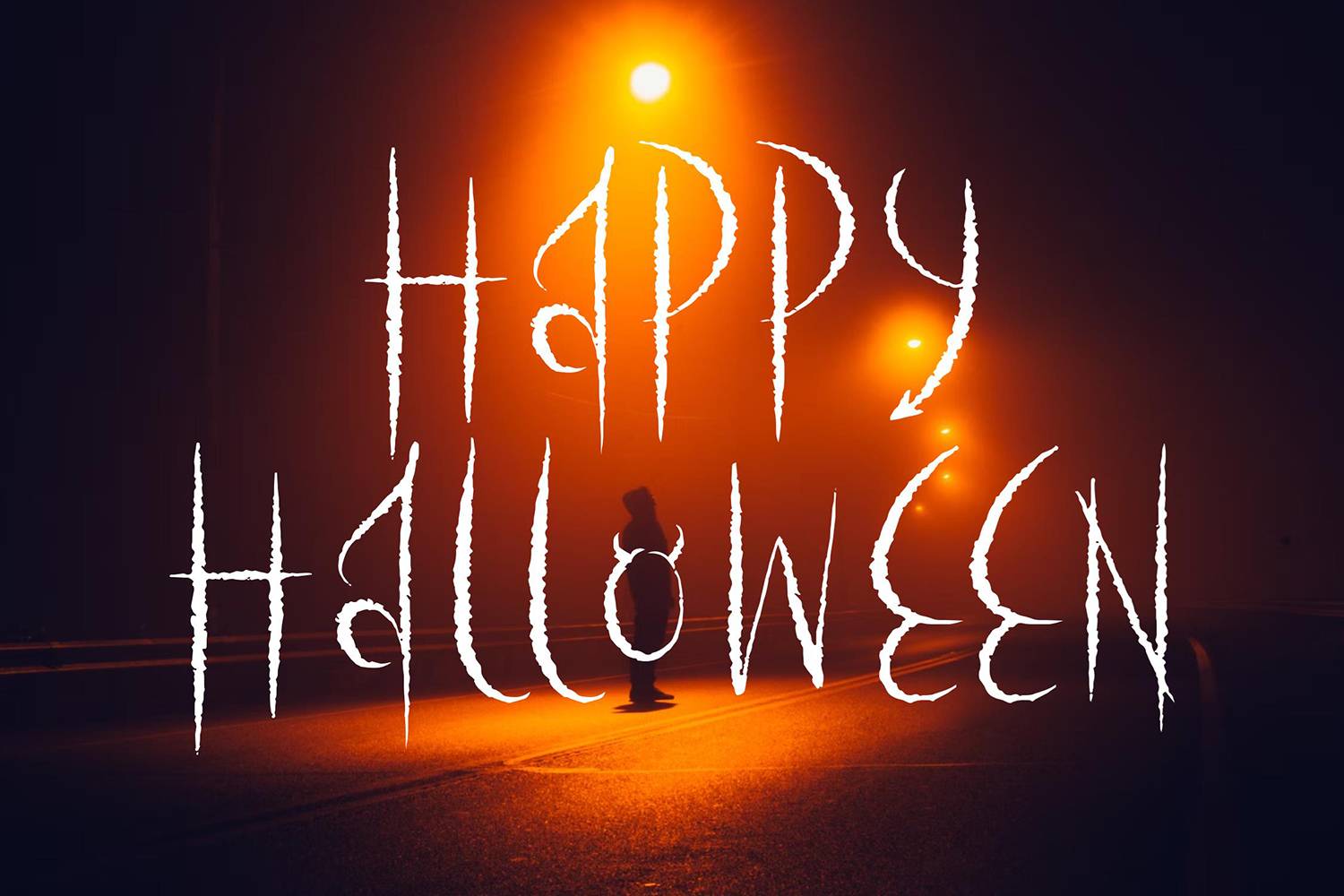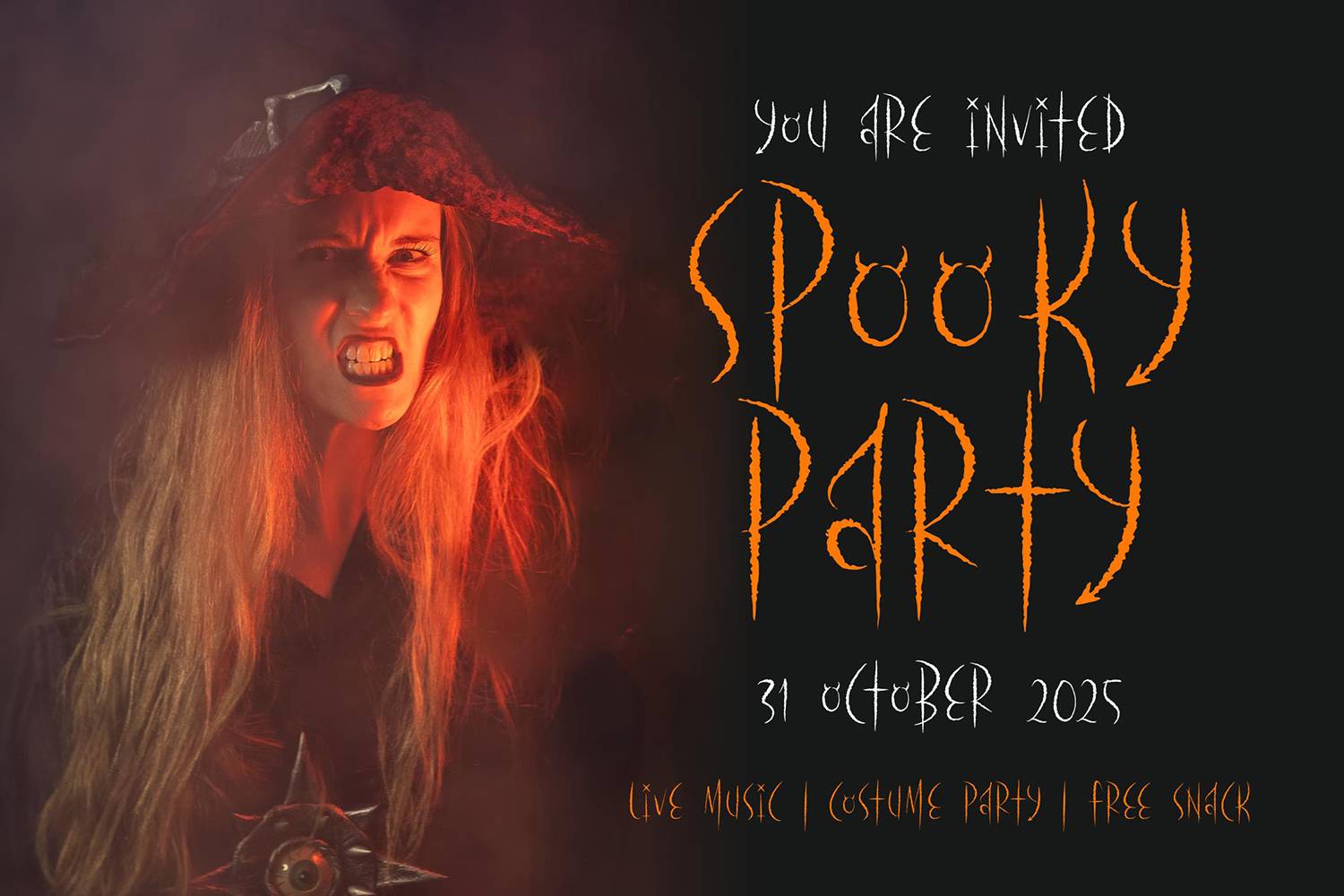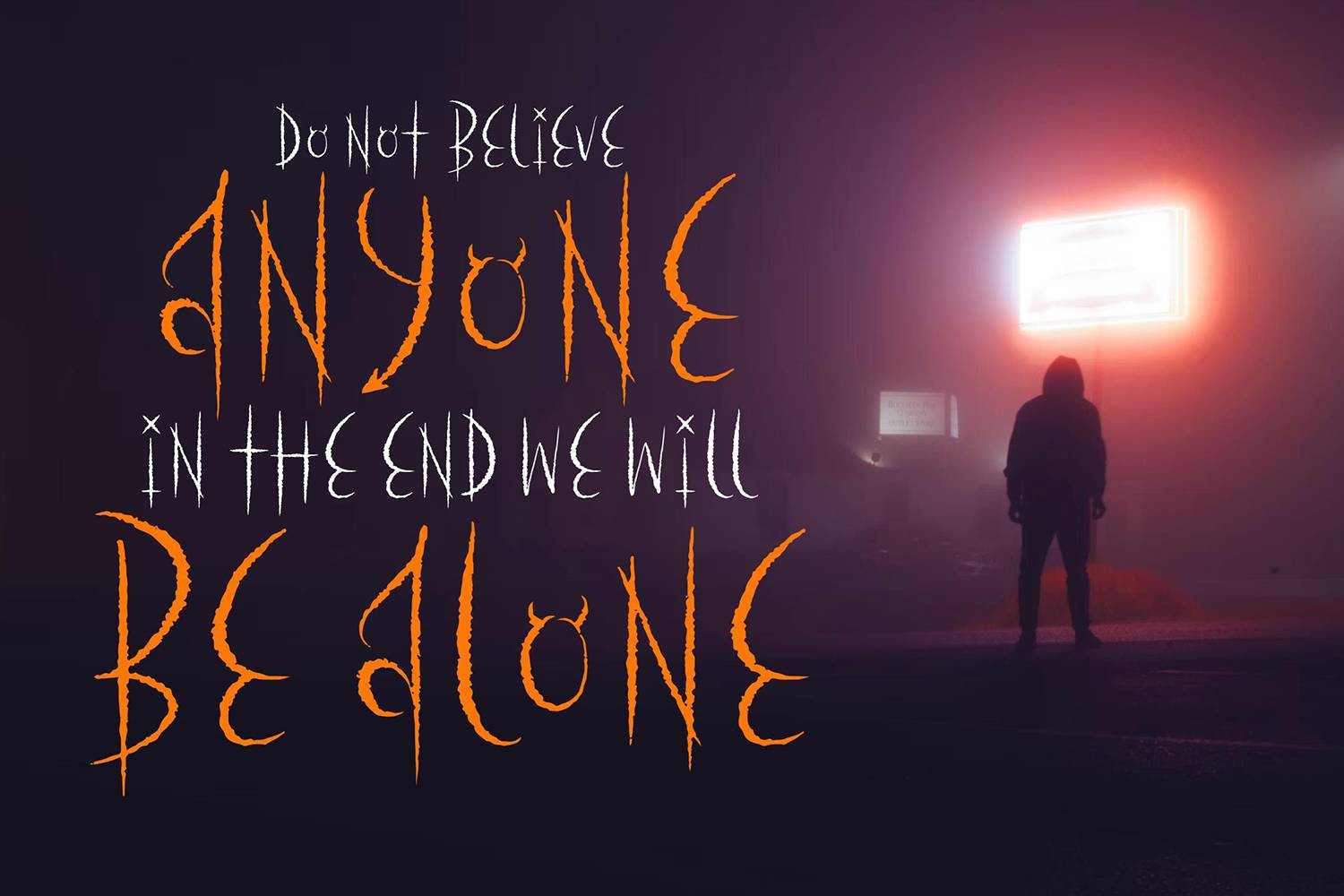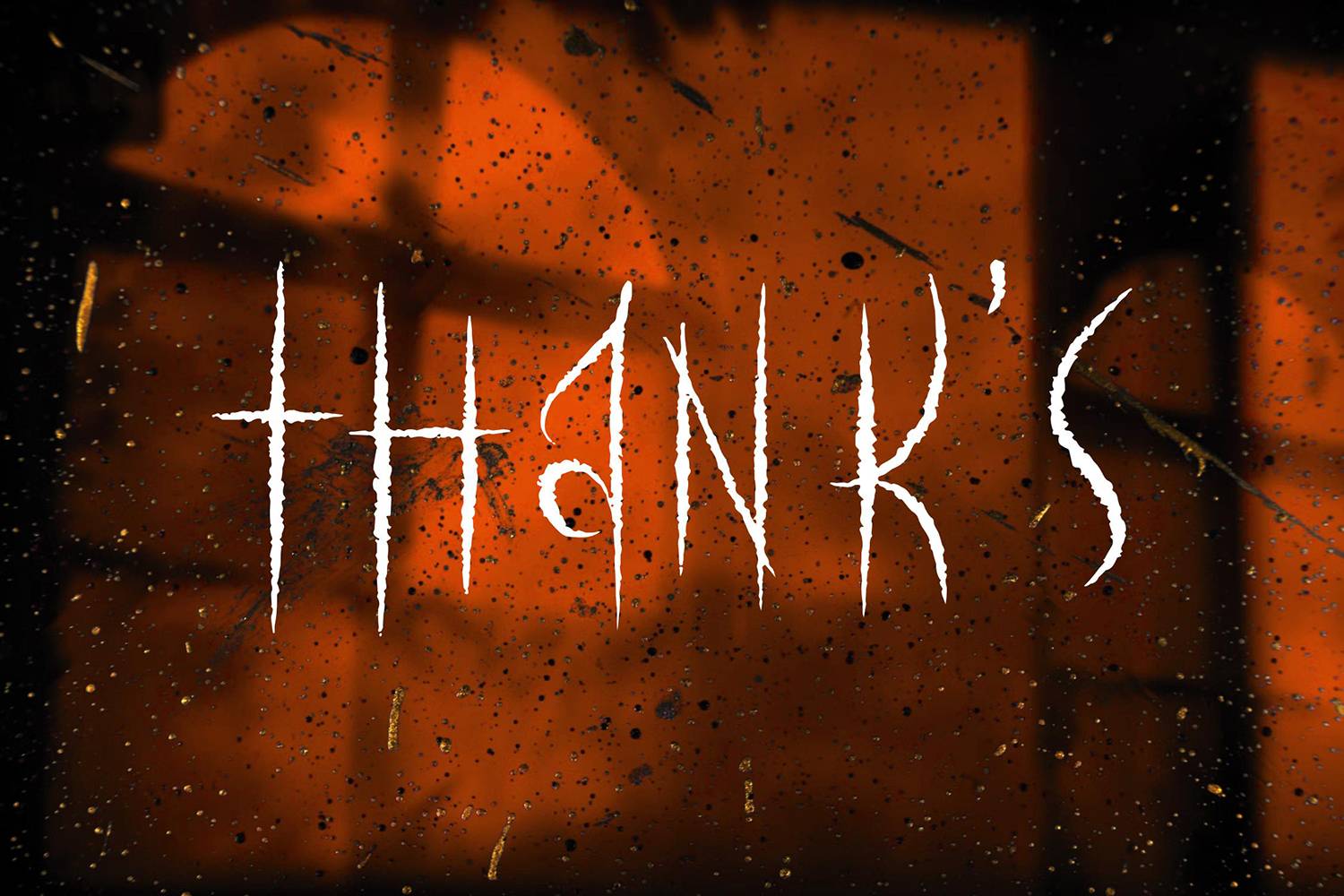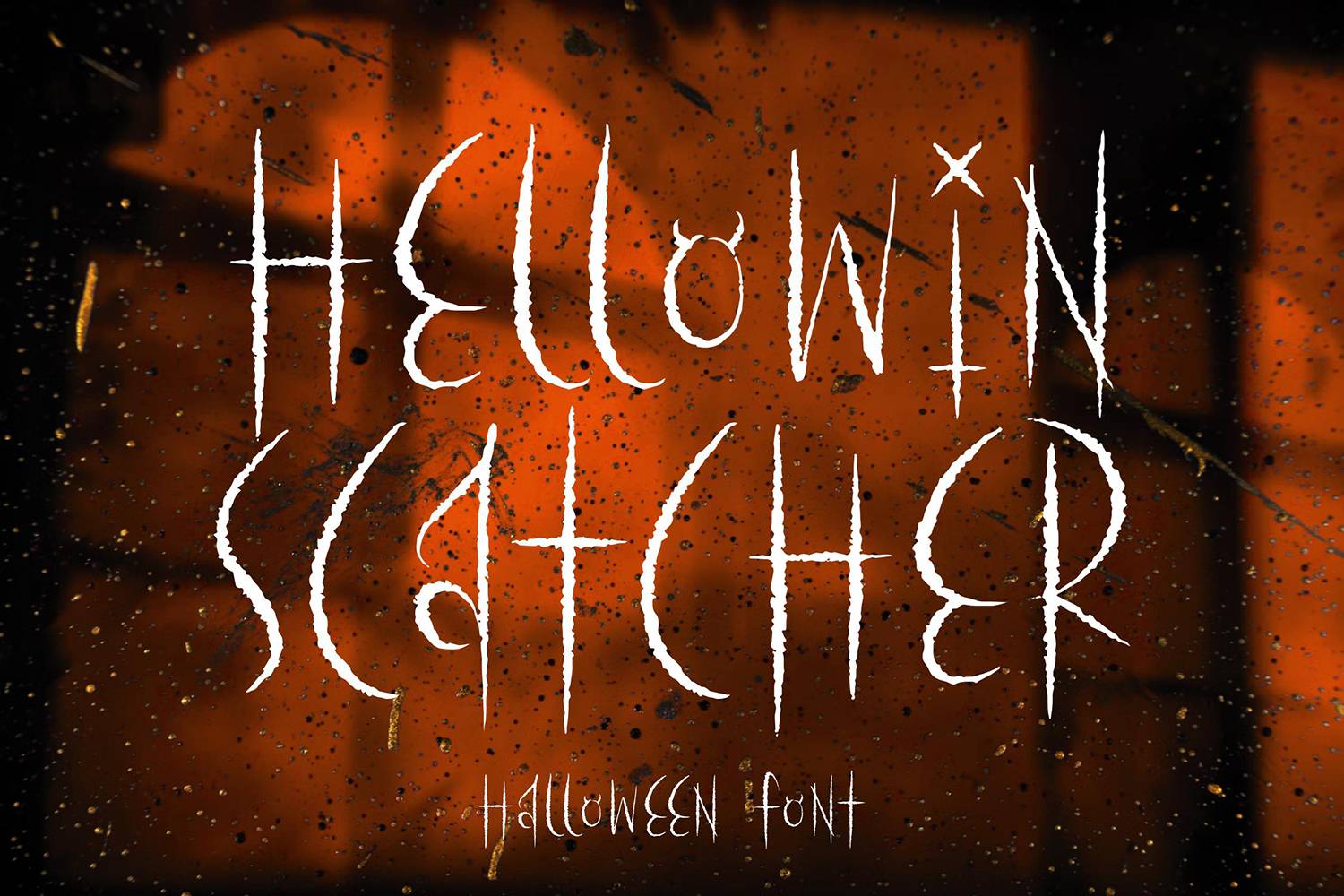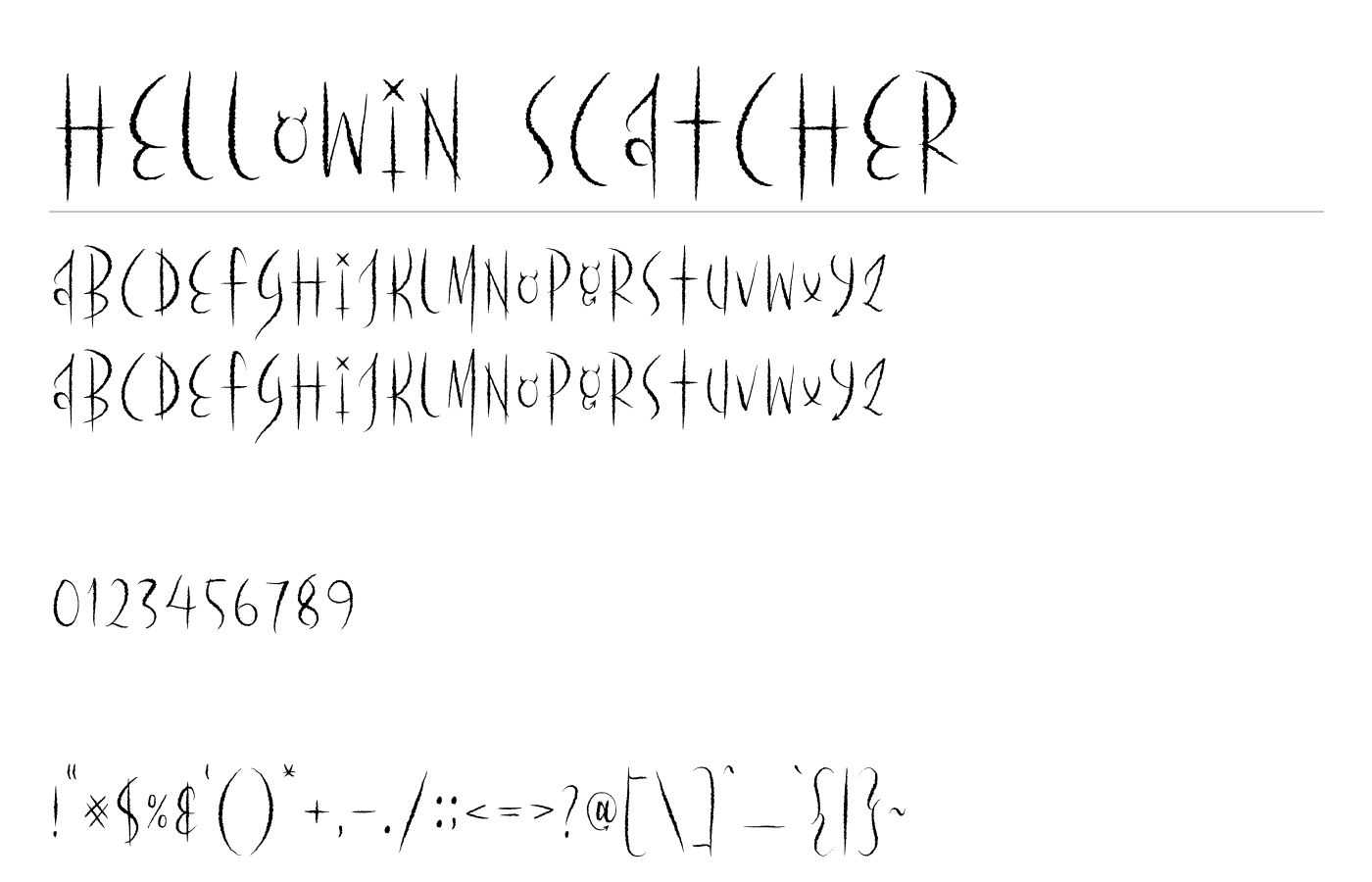
Hellowin Scatcher is a narrow, hand-drawn serif font with an eerie, scratchy style that brings a spooky and mysterious atmosphere to any design. Its tall, delicate letterforms with uneven strokes and quirky details make it perfect for Halloween-themed projects, horror branding, or any creative work that needs a uniquely unsettling yet artistic touch. This font works best for headlines, posters, and decorative uses where its distinct personality can shine.
Hellowin Scatcher Font
About Hellowin Scatcher Font